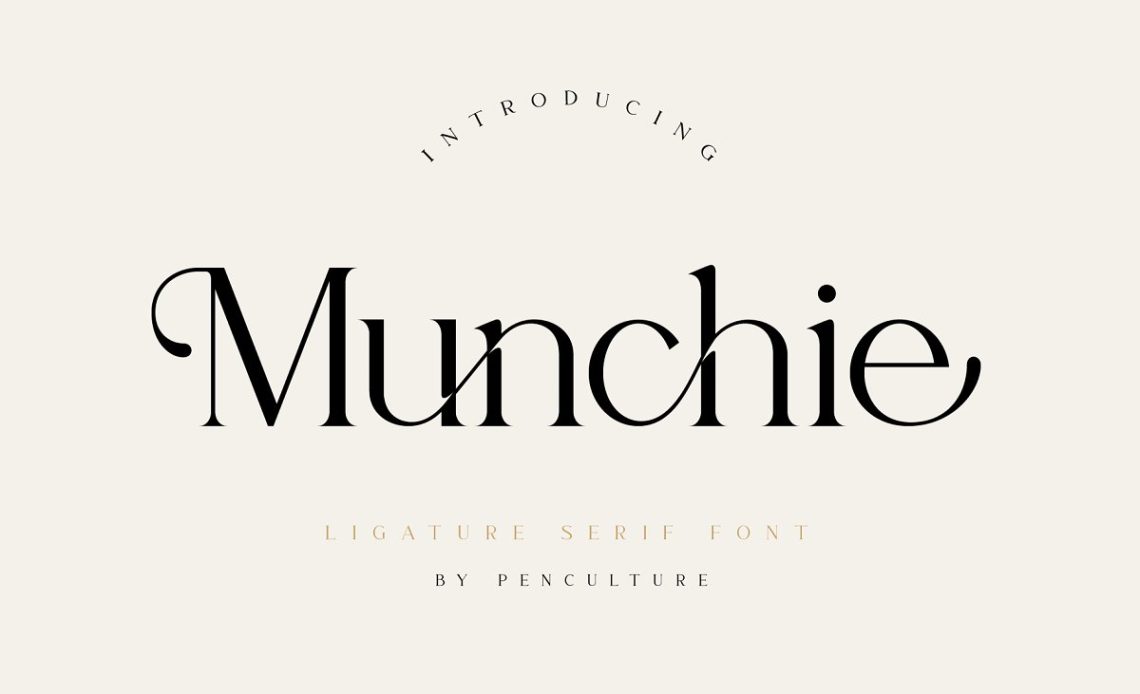
Introducing Munchie // Ligature Serif Font, a masterpiece created by the talented Revo Farisky. This font is not your ordinary serif font, it's a modern marvel that will elevate your designs to new heights. Get ready to be captivated by the stunning ligatures that set this font apart from the rest.
With Munchie, you're not just getting a font, you're getting a toolkit that unlocks endless creative possibilities. The beautiful alternates make it a breeze to create breathtaking branding, eye-catching logos, mesmerizing posters, and captivating social media posts. No matter the design project, Munchie is here to impress.
Imagine the impact this font will have on your web design. With its sleek and sophisticated style, it will effortlessly enhance the visual appeal of your website, leaving a lasting impression on your visitors. Stand out from the crowd and make your online presence unforgettable.
But Munchie is more than just a pretty face. It is designed with usability in mind, making it incredibly easy to incorporate into your projects. Say goodbye to frustrating font struggles and hello to seamless integration. Let your creativity flow without any obstacles.
When you download Munchie, you're not just investing in a font, you're investing in an experience. Feel the rush of inspiration as you explore the countless possibilities this font offers. It's time to unleash your inner artist and let your imagination run wild.